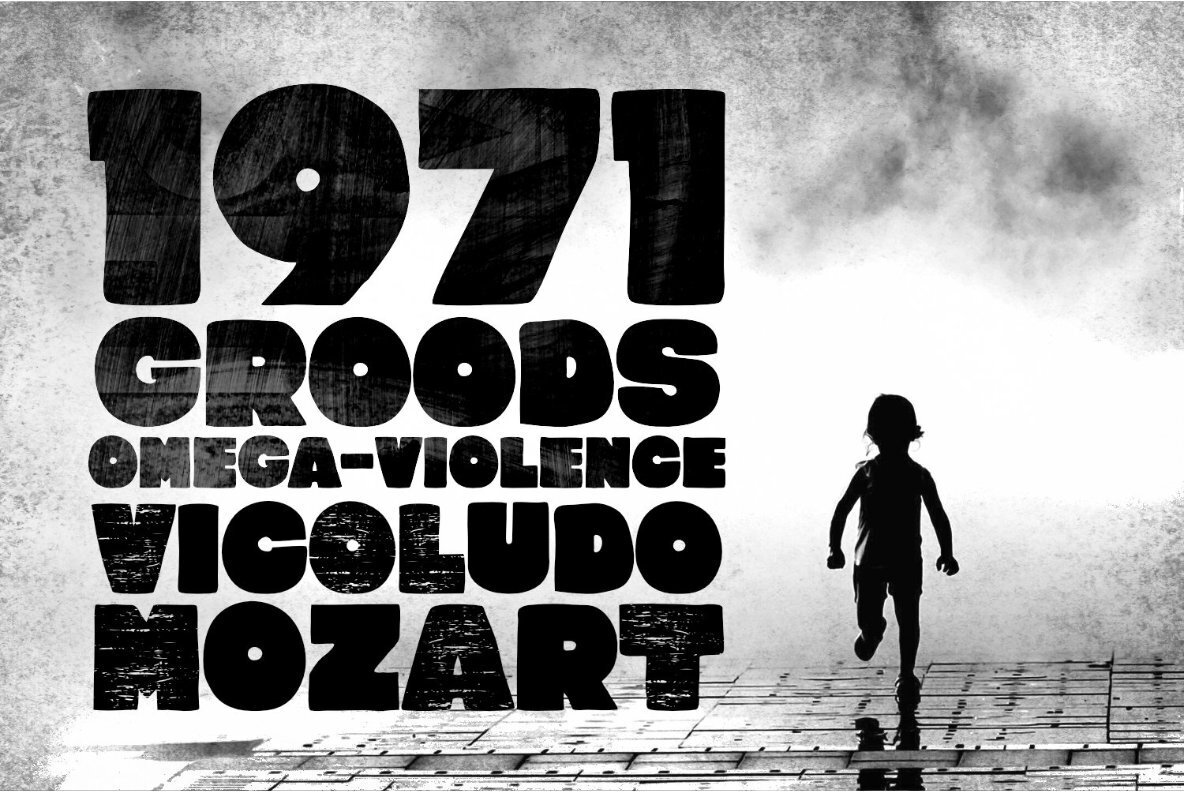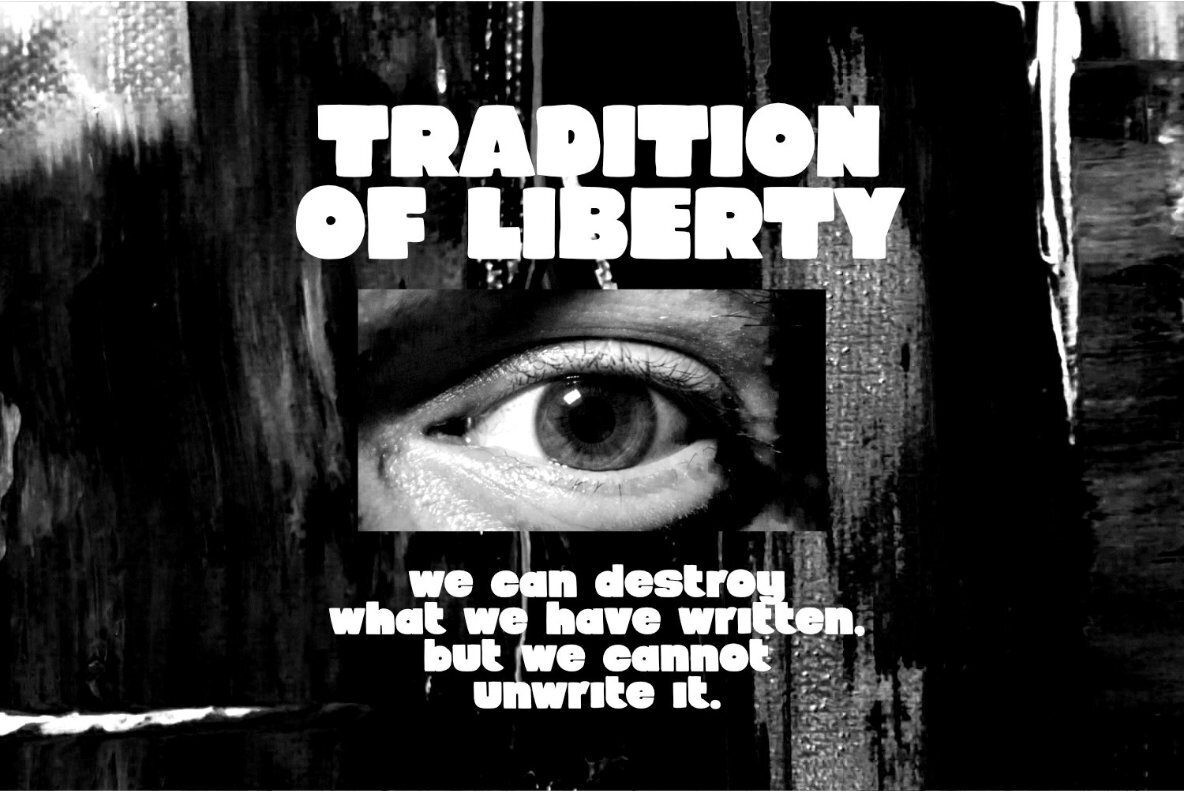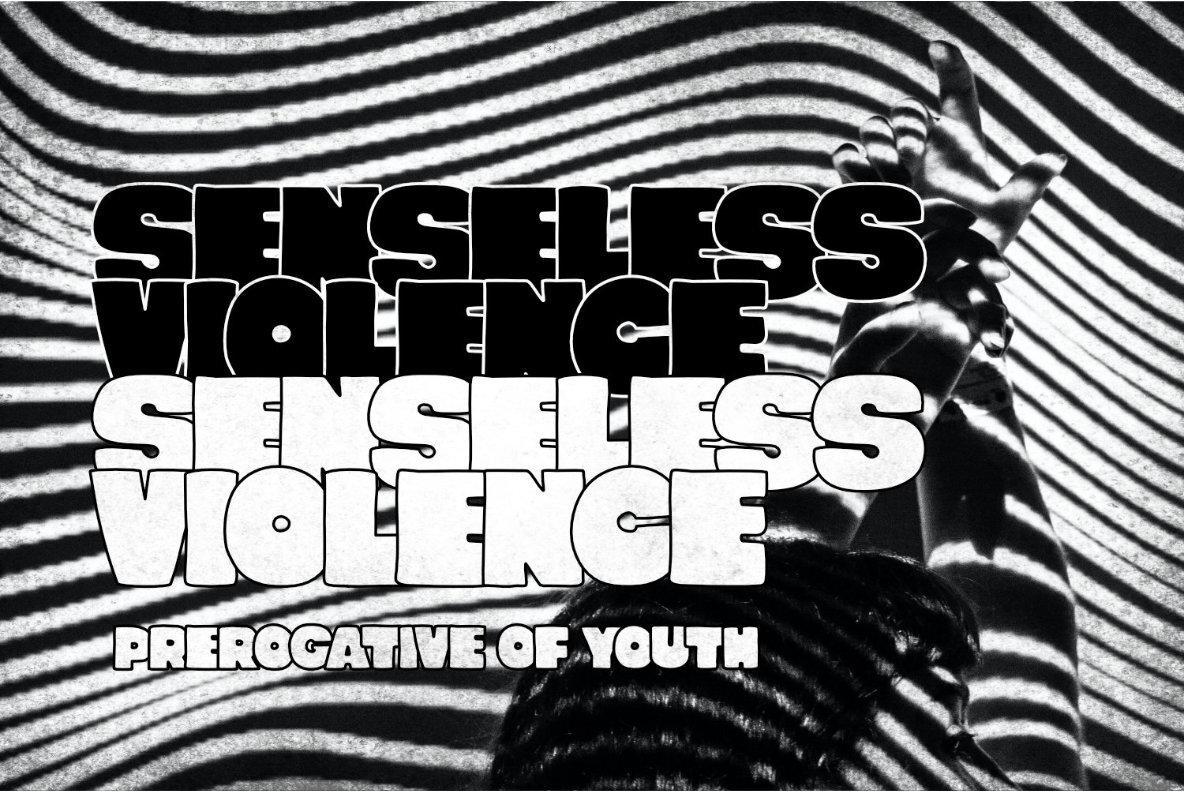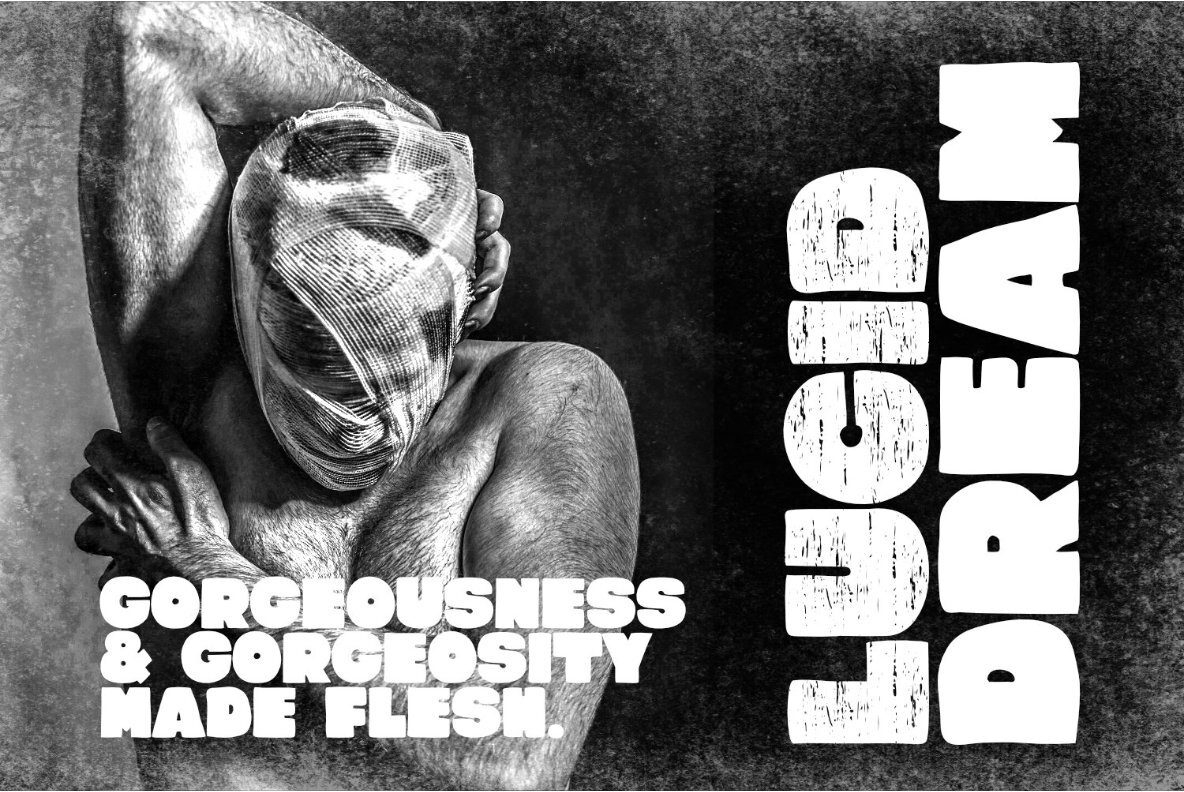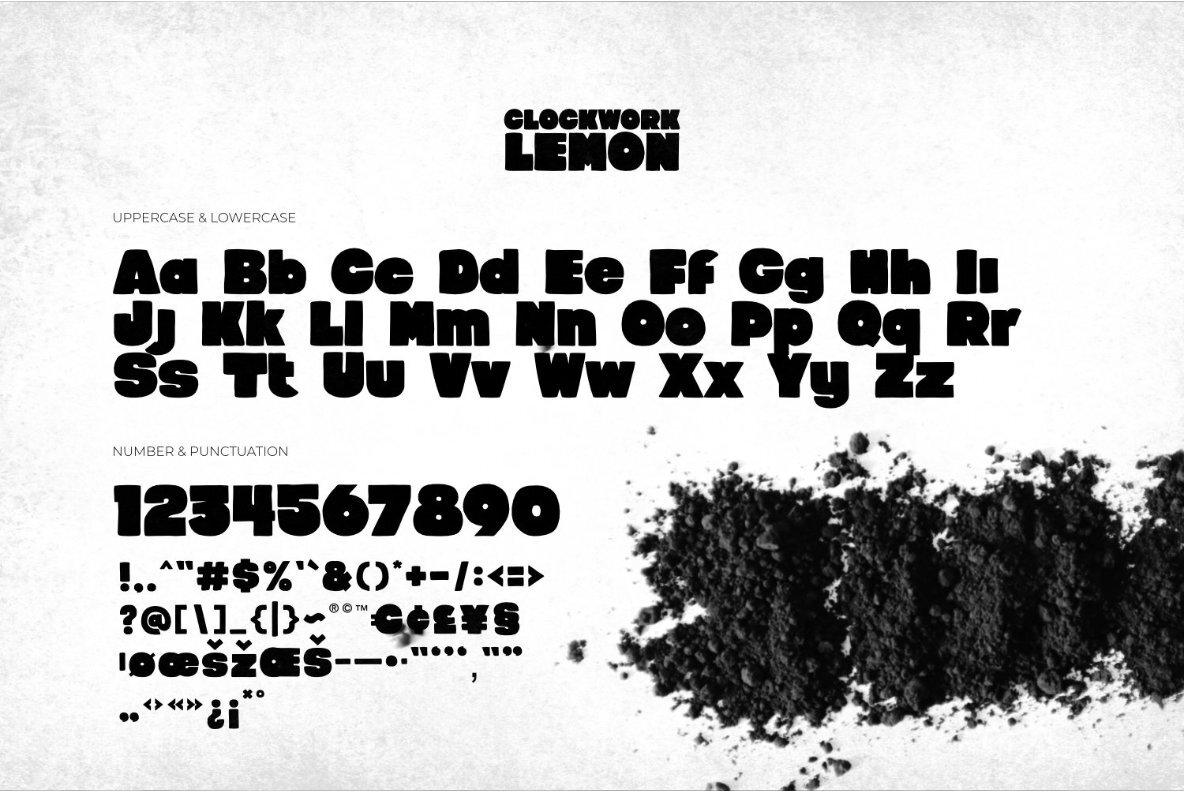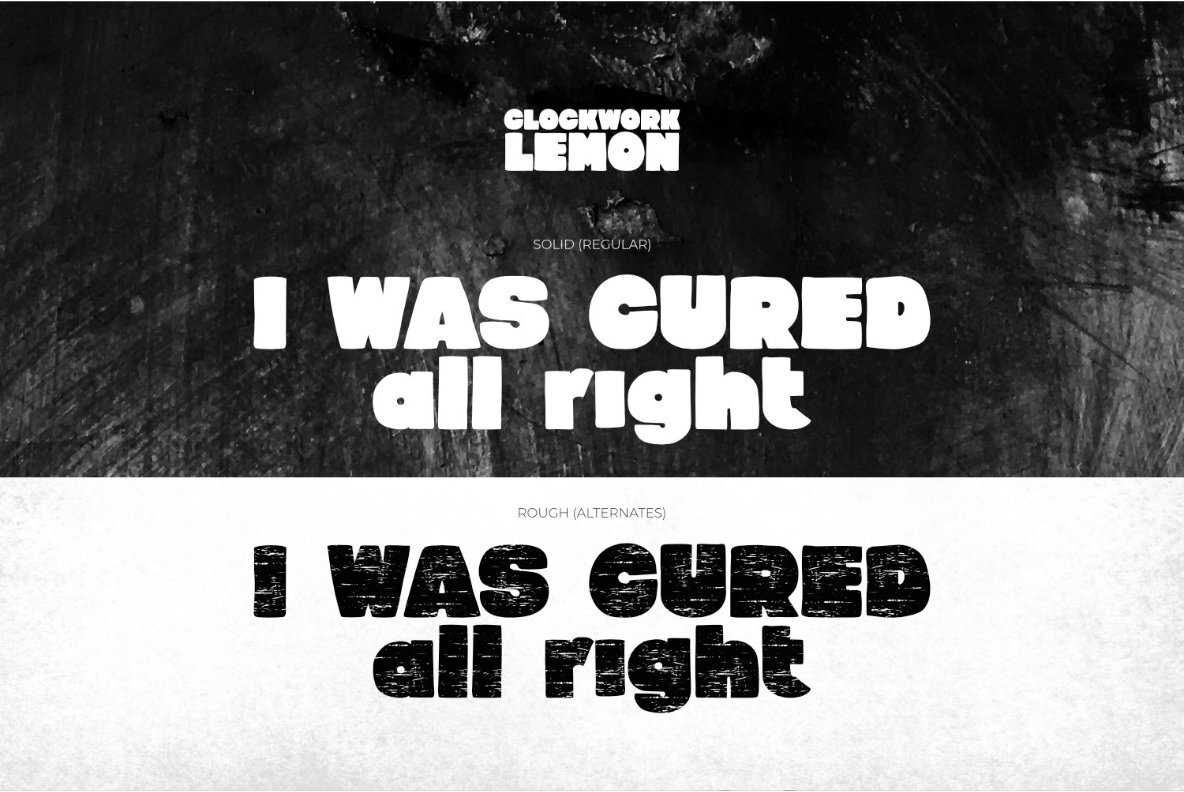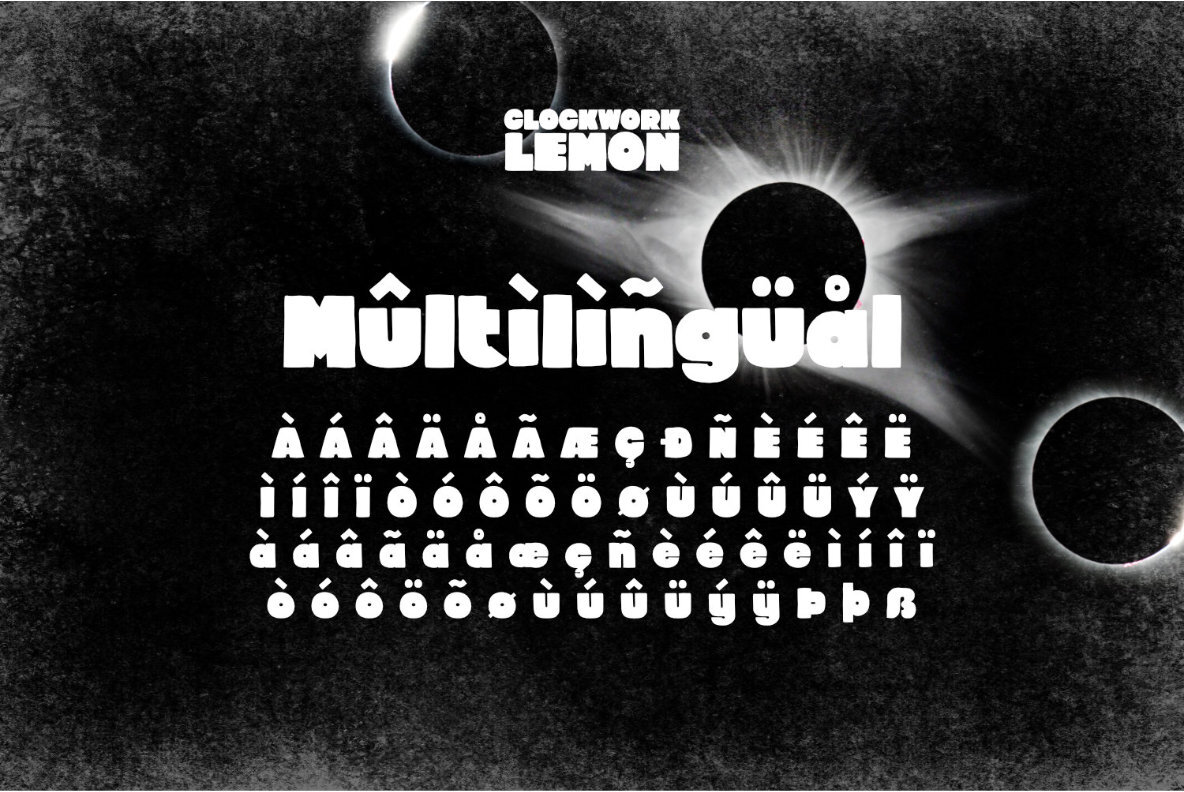
Clockwork Lemon Font
Clockwork Lemon Regular
This typeface is adapted from one of Stanley Kubrick's masterpiece films, Clockwork Orange. Clockwork Lemon has a similar character shape to the movie logo but is more raw, rougher and is a hand-drawn style font. A wilder impression is shown in the curves of the letters, with alternates in the form of a dirty texture. You can play with this font with 2 alternative styles : solid and rough.
Clockwork Lemon is very suitable for making a poster or magazine layout, quotes, or simply as a stylish text overlay to any background image.
:: 2 Styles : Solid & Rough
:: Uppercase & Lowercase
:: Numbers & Punctuation
:: Alternates
:: Multilingual Support